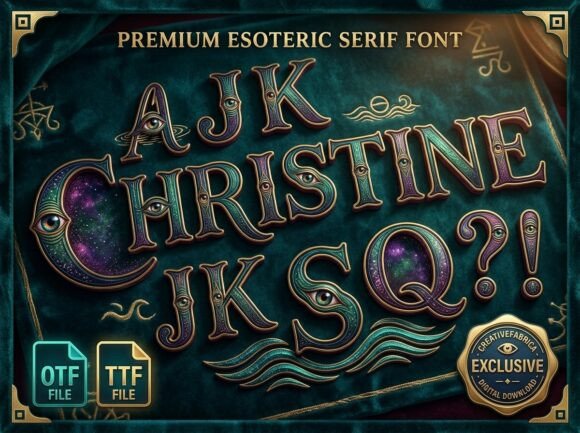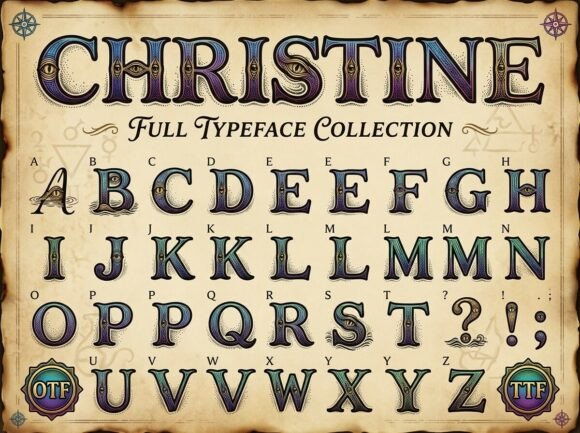
The Mysterious Allure of Christine Font: Unlocking Design Secrets
I still remember the night I was working on a dark fantasy book cover, struggling to find the perfect font to capture the essence of the story. My client wanted something mysterious, ancient, and evocative, but everything I tried seemed to fall flat. That’s when I stumbled upon Christine, an enigmatic and highly detailed ornate serif font that would change the game. In this article, I’ll share my journey with Christine, its features, and how to make the most of it in your designs.
First Impressions: What I Love About Christine
Christine is more than just a font – it’s an experience. Here are a few things that I love about it:
- ✨ Intricate filigree details that add a touch of mysticism to any design
- ✅ Weathered, ancient bronze texture that gives it a relic-like feel
- 🔍 Highly legible, even in smaller sizes, making it perfect for body text
- 💫 Support for OpenType features, glyphs, and stylistic alternates, giving you plenty of creative freedom
Honest Review: The Not-So-Perfect Font
While Christine is an incredible font, it’s not without its quirks. Here are a few things to keep in mind:
- 🤔 Some characters may require manual kerning, especially when using all-caps or mixing with other fonts
- ⚠️ The intricate details can be overwhelming if not used thoughtfully; it’s easy to overdo it
The Story Behind Christine
Christine’s design is shrouded in mystery, but it’s said to have been inspired by ancient, mystical texts and artifacts. The font’s creator aimed to capture the essence of these relics, infusing Christine with an otherworldly allure. Whether or not this story is true, Christine’s unique character is undeniable.
| What makes Christine font so unique? | Christine’s intricate filigree details, weathered texture, and support for OpenType features set it apart from other fonts. |
| Is Christine suitable for body text? | Yes, Christine is highly legible, even in smaller sizes, making it suitable for body text. |
| Can I use Christine with other fonts? | Yes, but be mindful of manual kerning and pairing fonts that complement Christine’s unique style. |
Christine font is a design treasure that can elevate your projects to new heights. With its mysterious allure and intricate details, it’s perfect for occult-themed branding, dark fantasy book covers, and atmospheric cinematic titles. Experiment with Christine and unlock the secrets of your designs!